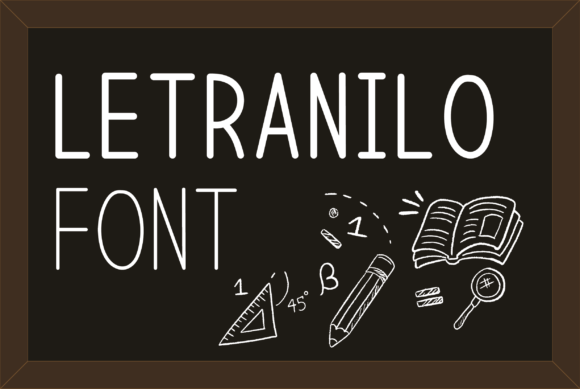
**Dive into the World of Letranilo: The Sans Serif Font That Exudes Modernity and Grace**
Indulge in the captivating allure of Letranilo, a sans serif font meticulously crafted by Danilo Miguel. This typographic masterpiece embodies sophistication and modernity, exuding an air of confidence and clarity that will elevate your designs to new heights.
Letranilo's clean lines and minimalist aesthetic evoke a sense of effortless elegance, making it the perfect choice for projects that demand a touch of sophistication. Its crisp edges and sharp angles lend a contemporary flair, while its graceful curves infuse a touch of warmth and personality.
Whether you're crafting captivating headlines, compelling body text, or eye-catching logos, Letranilo will effortlessly convey your message with precision and impact. Its exceptional versatility empowers you to express a wide range of emotions and ideas, from the bold and assertive to the delicate and nuanced.
Experience the transformative power of Letranilo today, and witness how this extraordinary font can elevate your creative endeavors to new heights of excellence.